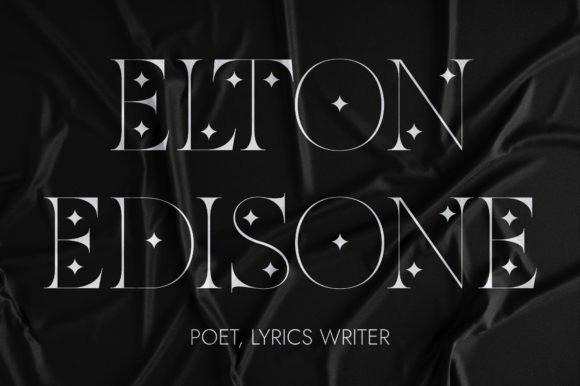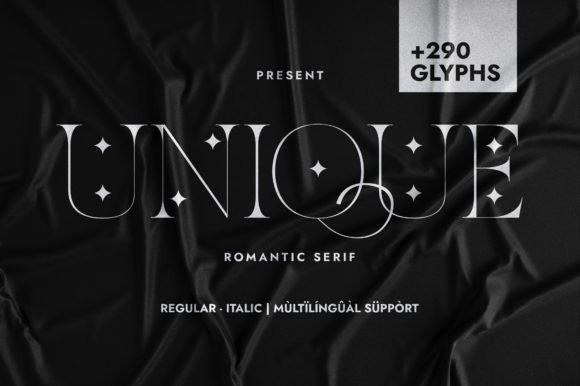
Unique Serif Font
Unique Serif Font is a unique, minimalist, romantic and elegant classic serif font. This font can be used for classy and elegant projects such as packaging design, jewelry, fashion, romantic movies, luxury goods, etc.